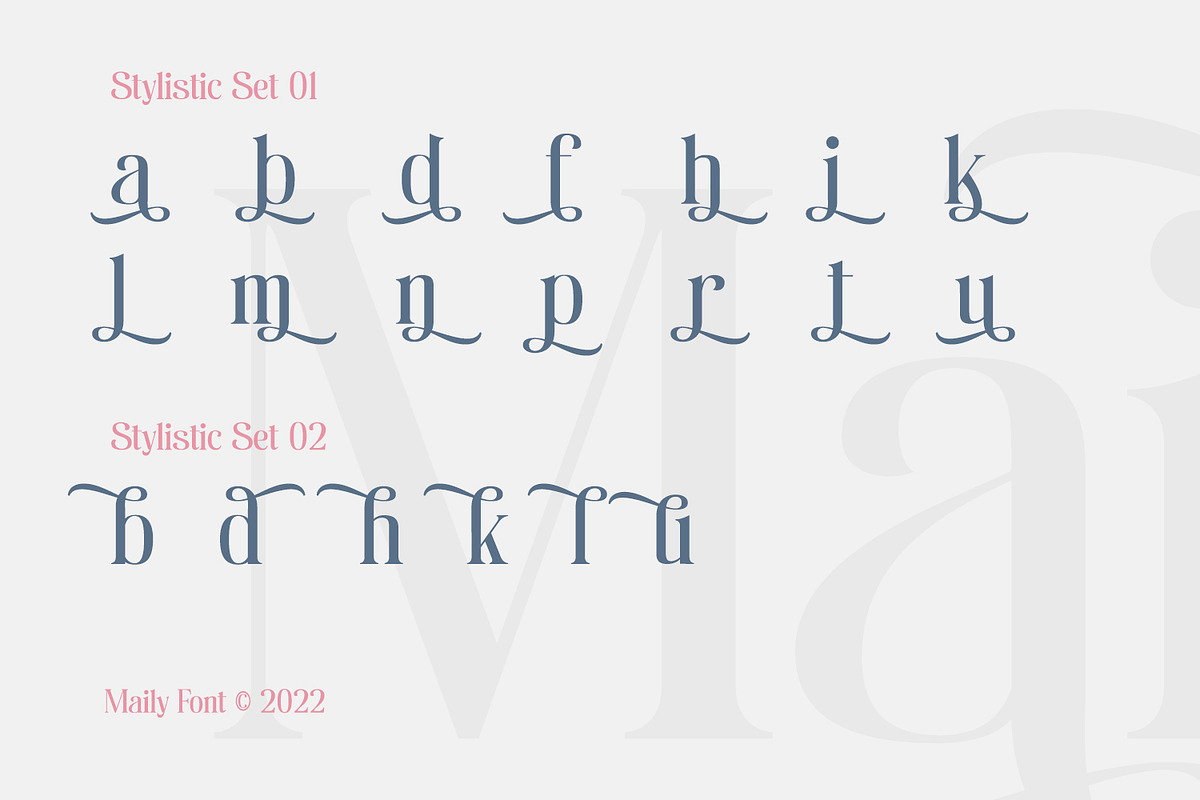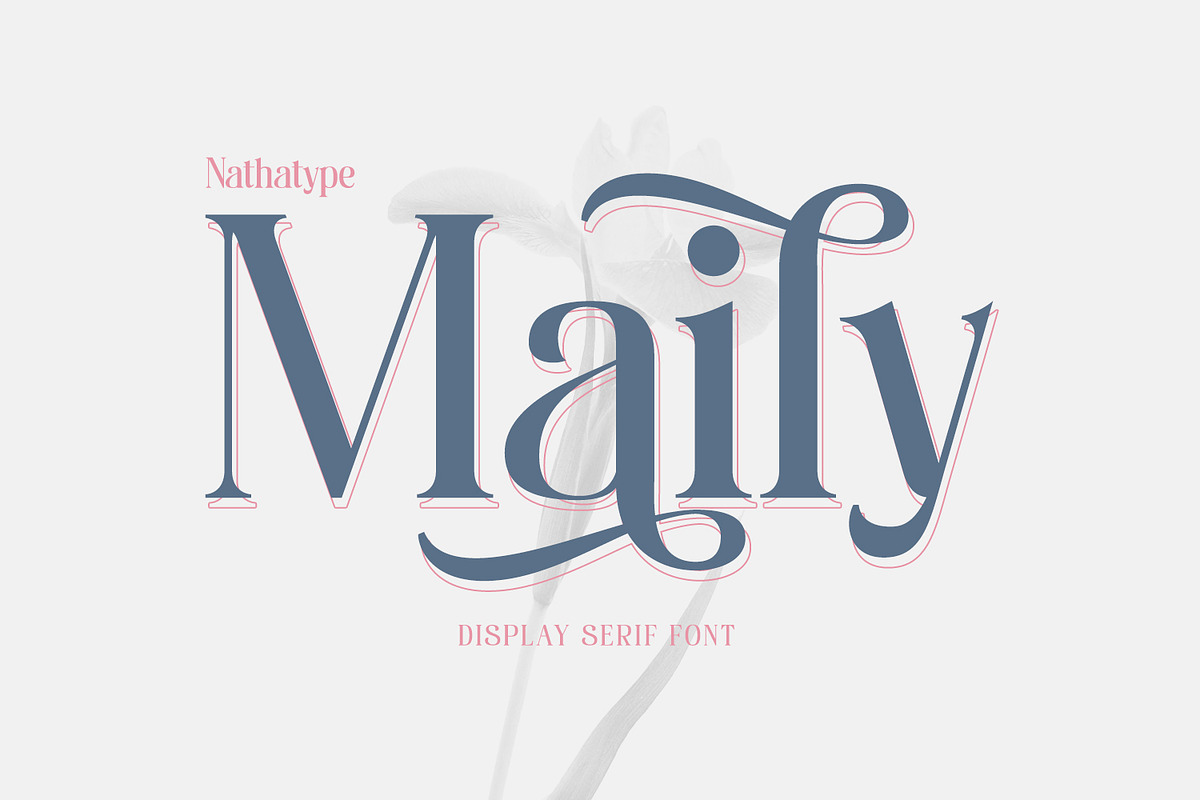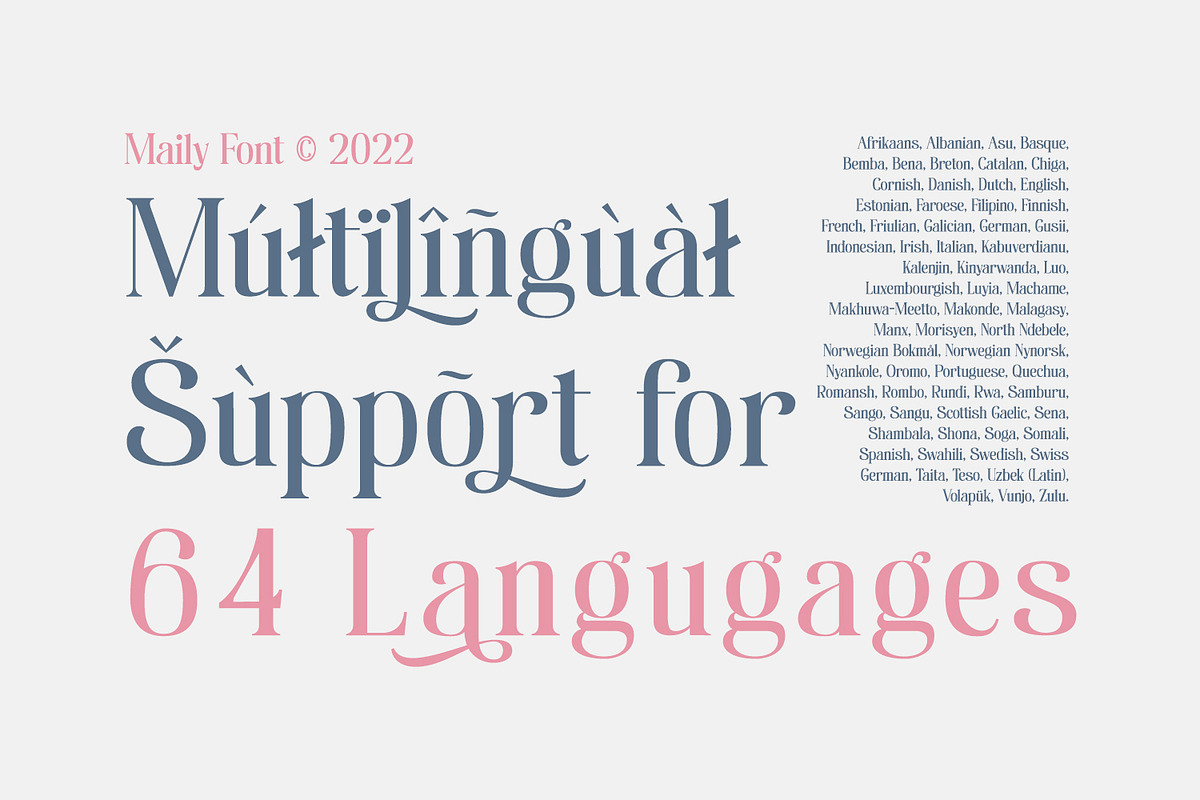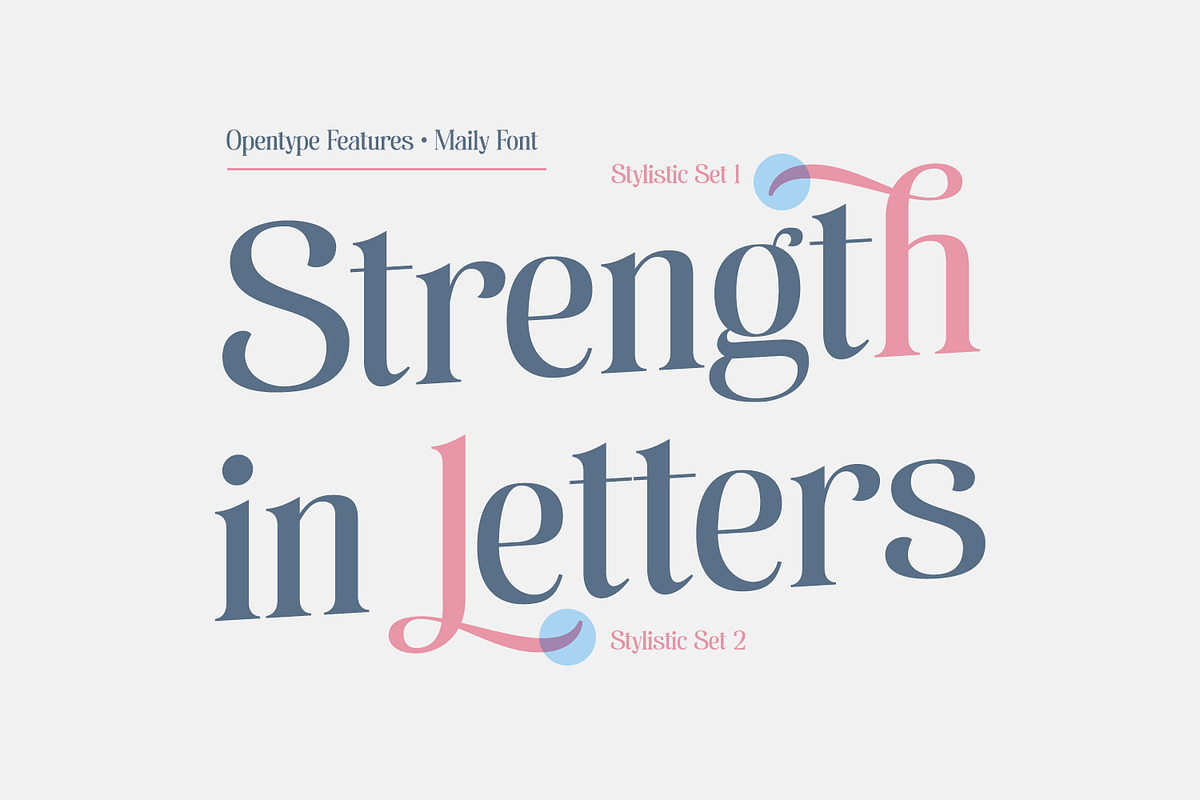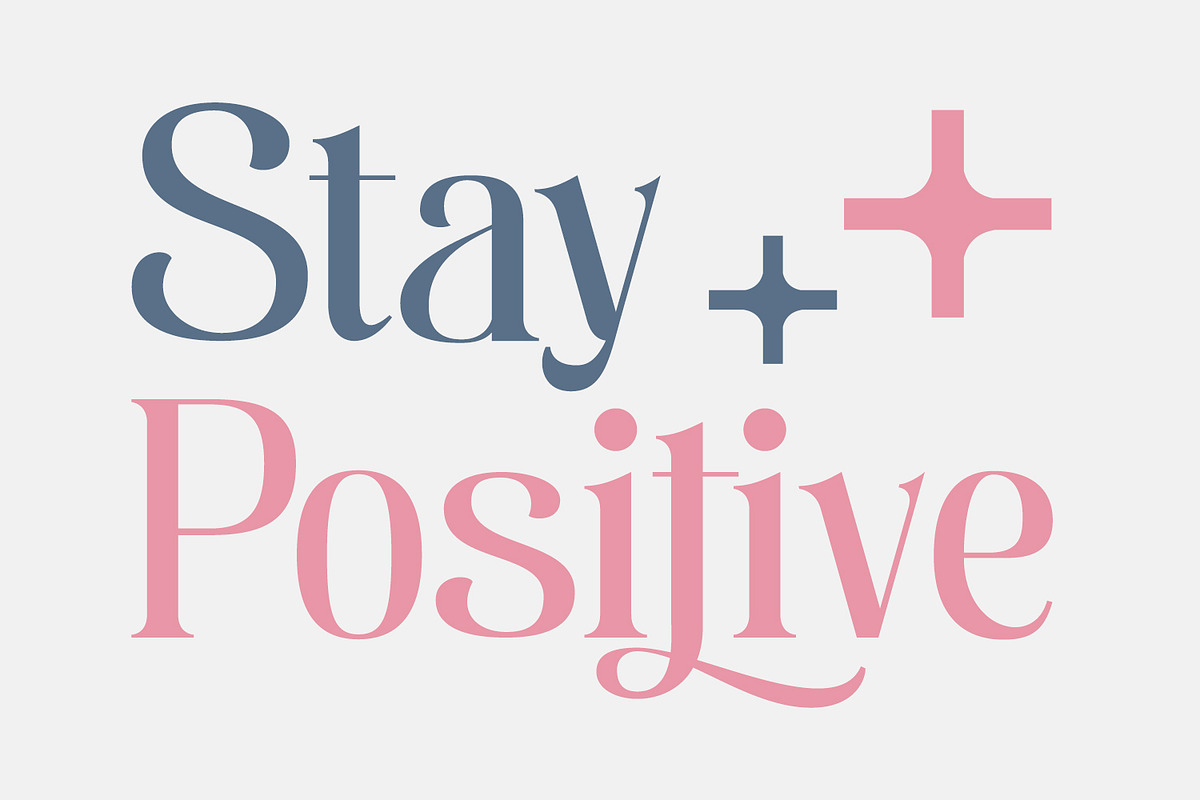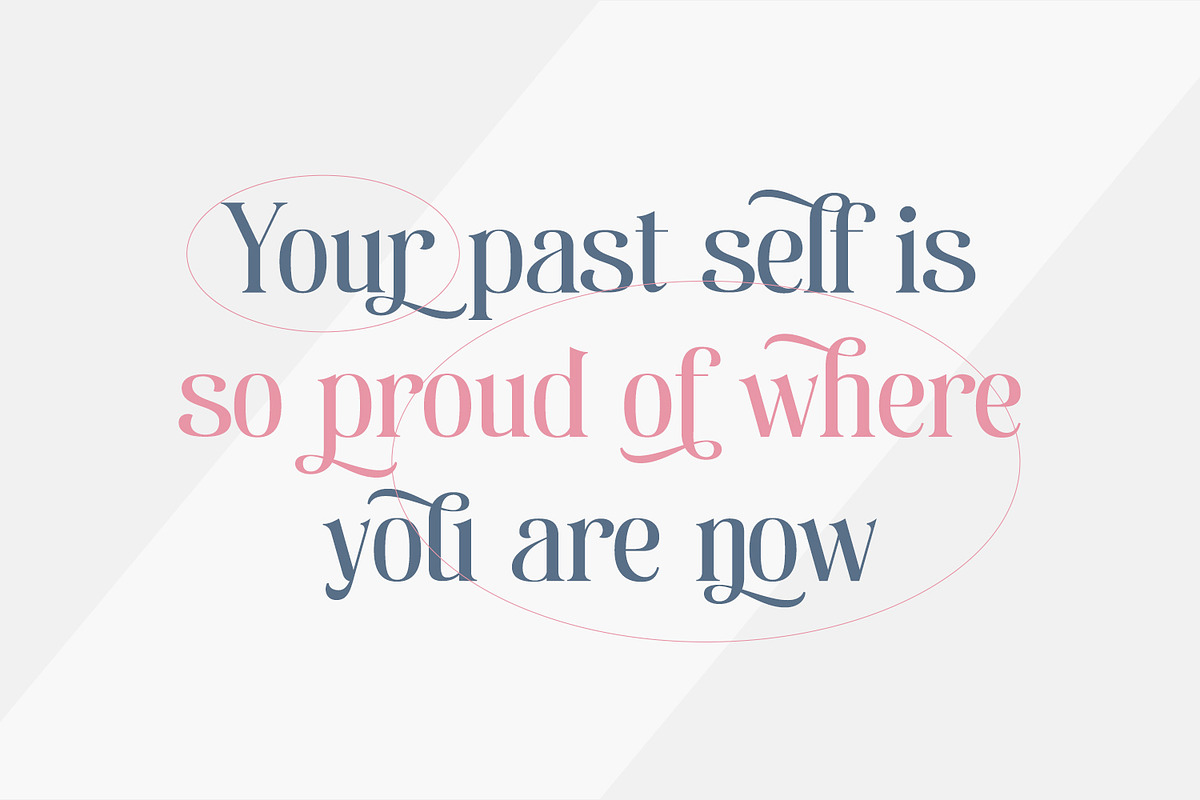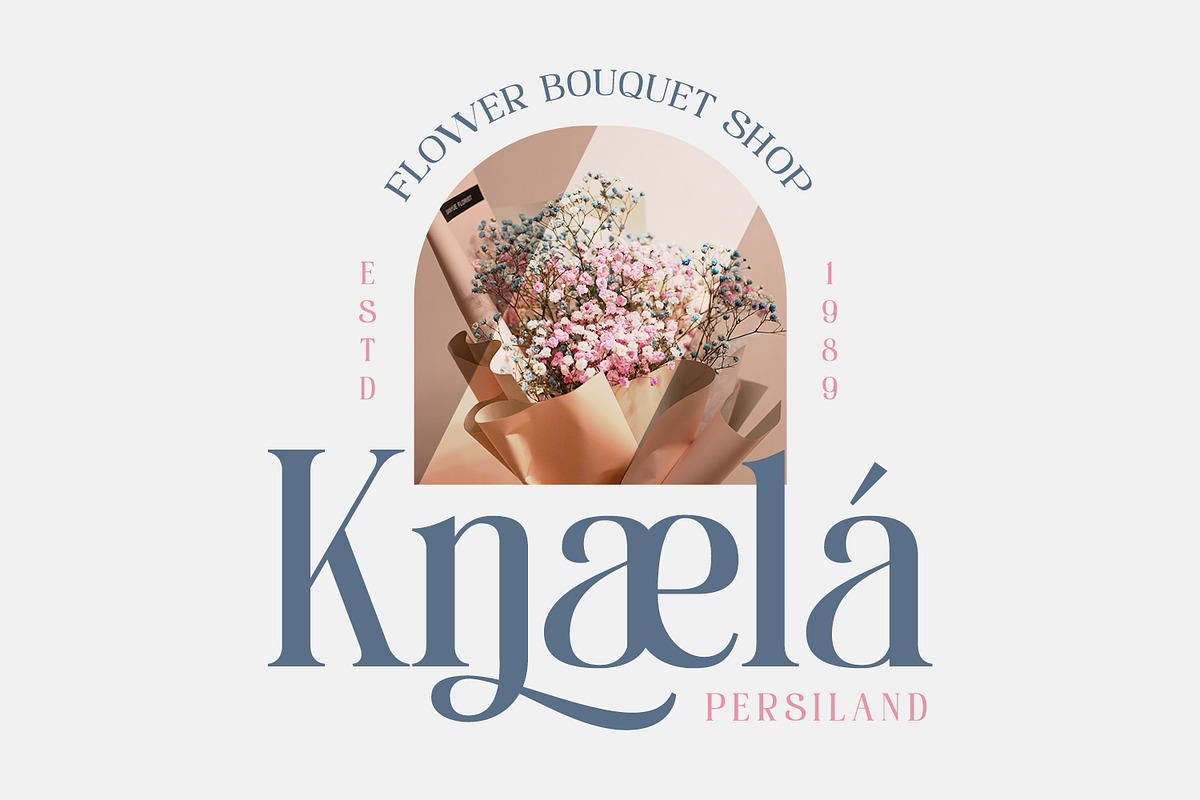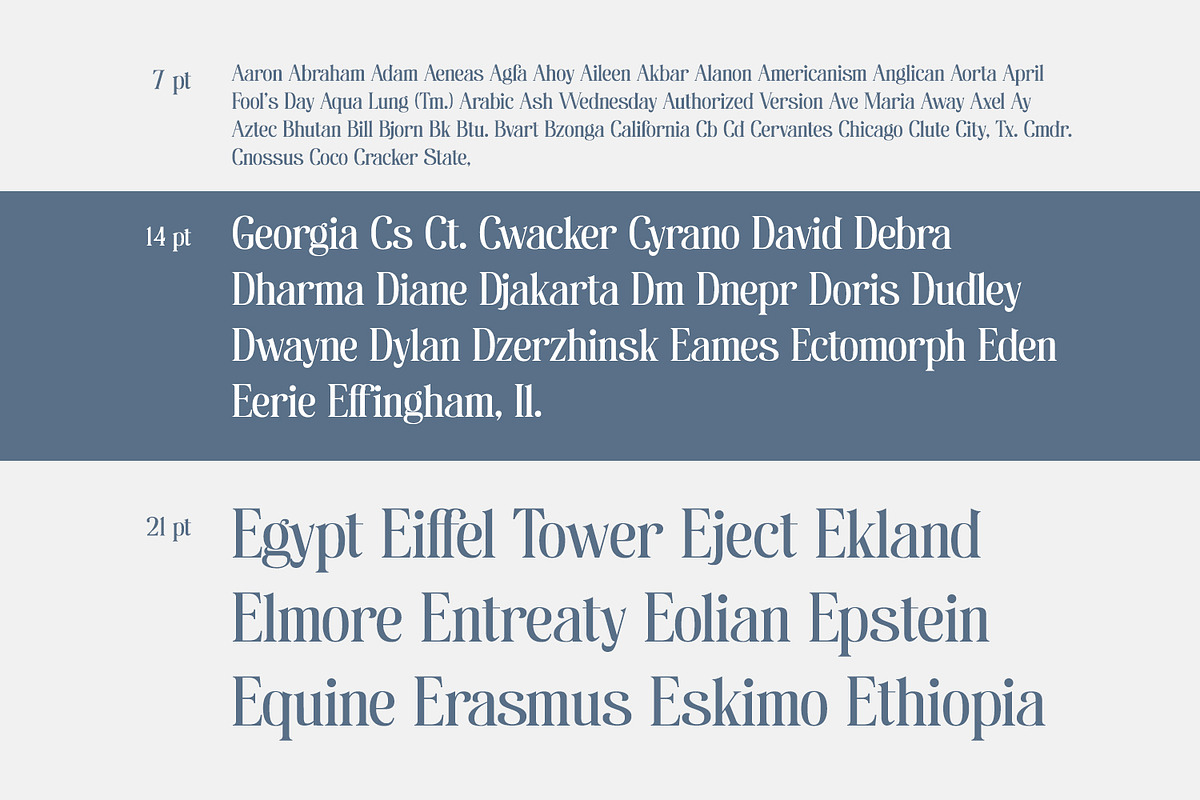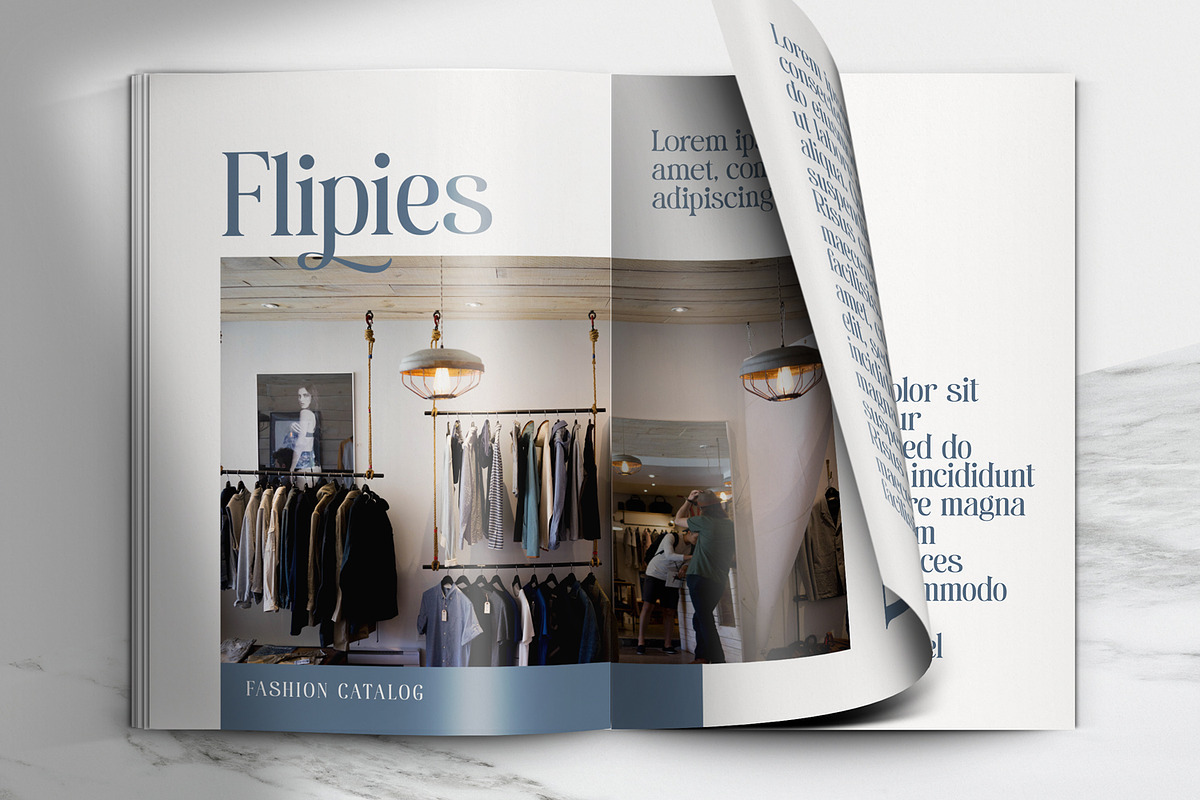
Maily
Maily is a display serif font to provide efficient quality, consistency and performance. It shows light, expressive, moving nuances in balanced function and creativity. The font’s main character is the hooks on each letters’ edges like other serif fonts. In addition, it is truly legible because of the wide spaces of the letters with which you may freely apply for any text sizes. You can also enjoy the available features in this font.
- Stylistic Sets
Maily fits best for various design projects, such as posters, banners, logos, magazine covers, quotes, headings, printed products, invitations, name cards, merchandise, social media, etc. Find out more ways to use this font by taking a look at the font preview.